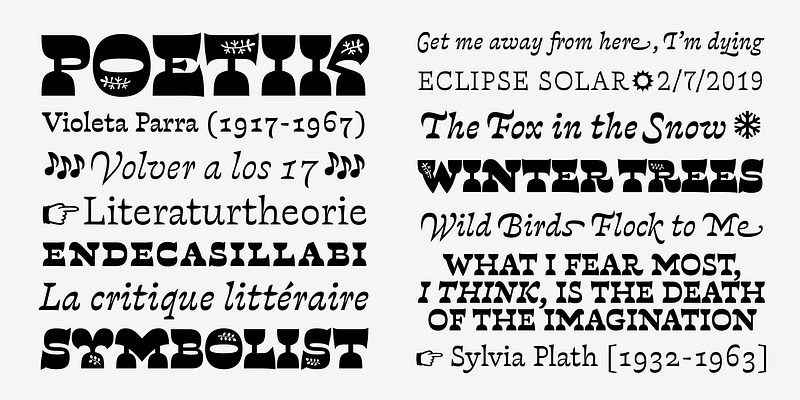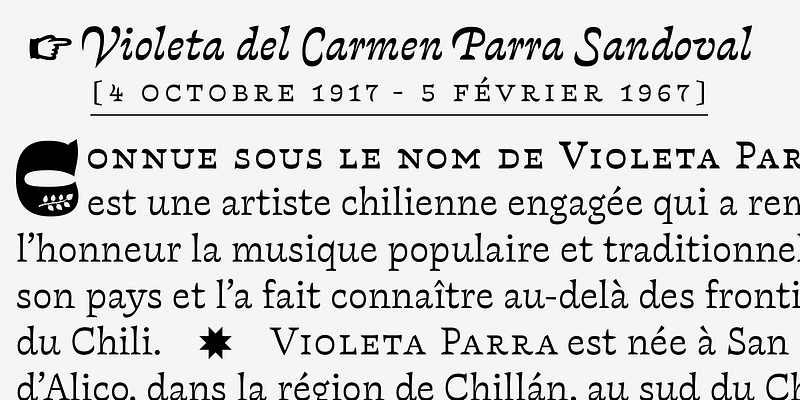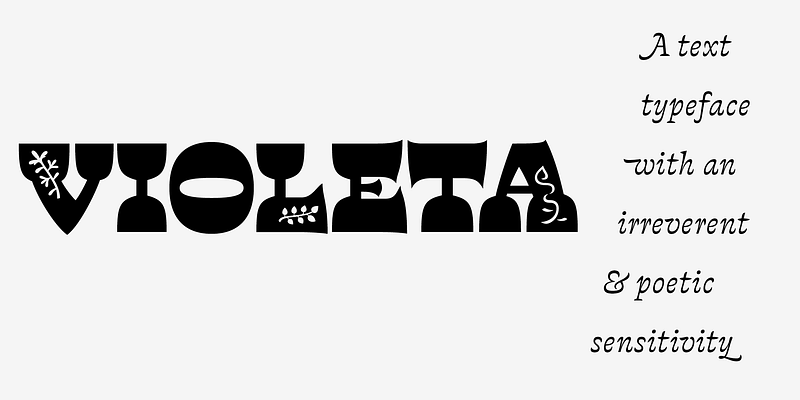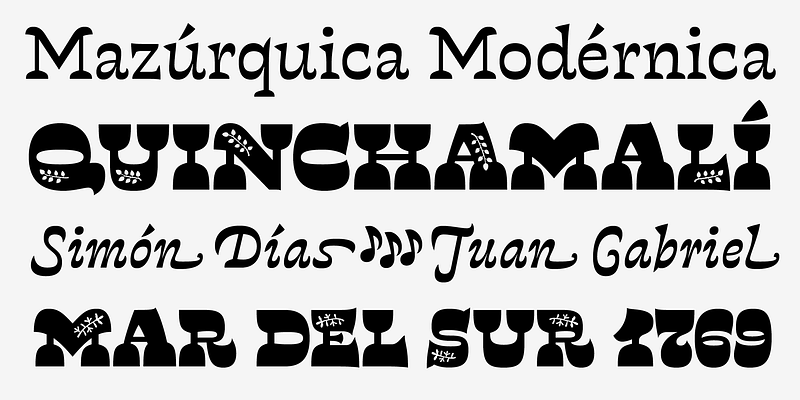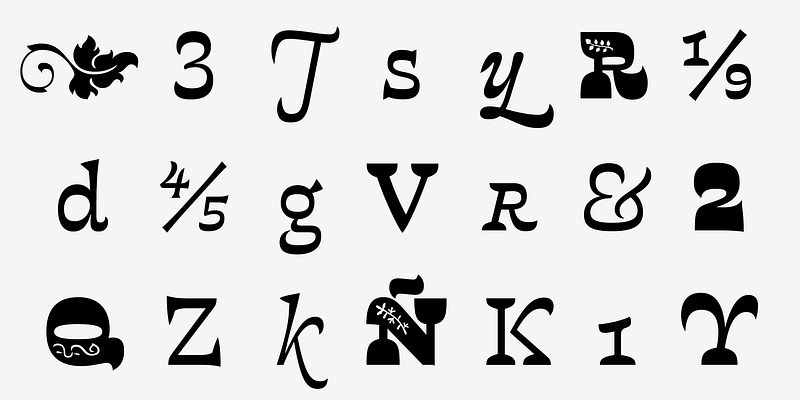
Violeta is a type family designed for text, its bold and particular look find precedents in Baroque and Expressionism. These typographic styles references helped us to develop an organic structure, which understands that the diversity of features and exuberant formal resources are viable ways to provide a balanced and comfortable texture for immersive reading. The main characteristic of Violeta is its stark reverse contrast. Violeta has decanted slowly, without anxiety, completely oblivious to the passing moments of fashion or trends of disposable design, which have gained so much space in our culture. Each glyph in Violeta has had time to mature until it has reached its own expression.
The family consists of six weights, each on roman and italic, and also one illuminated upper case title style with three different floral patterns. Violeta has been designed for complex editorial uses, has many typographic refinements to delight the sharpest designers.